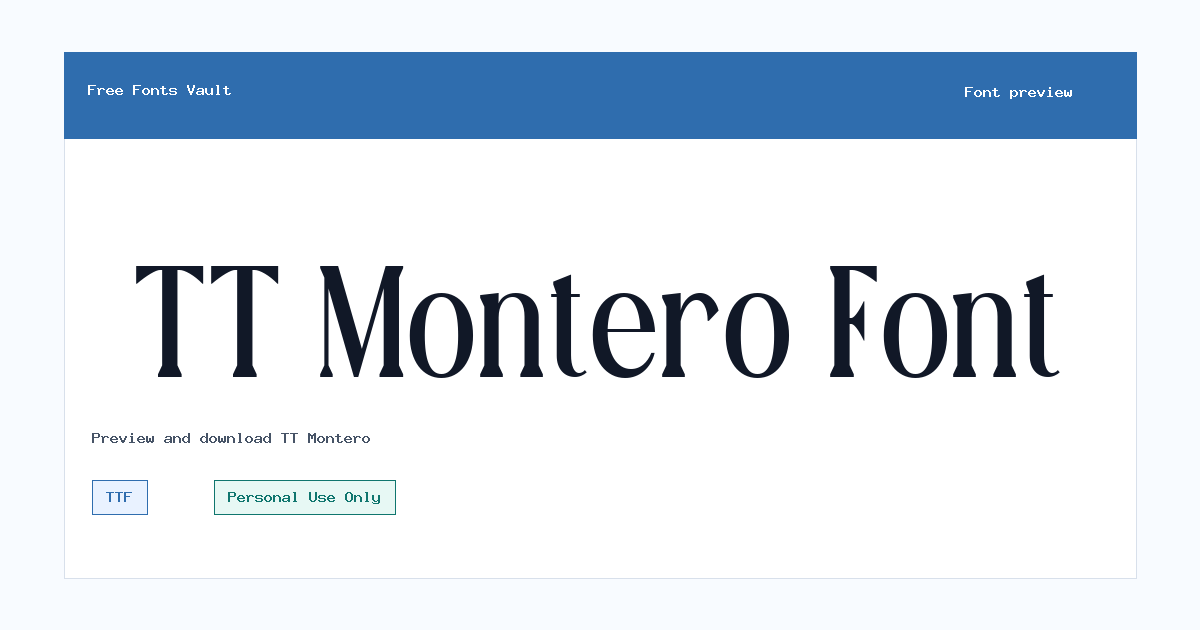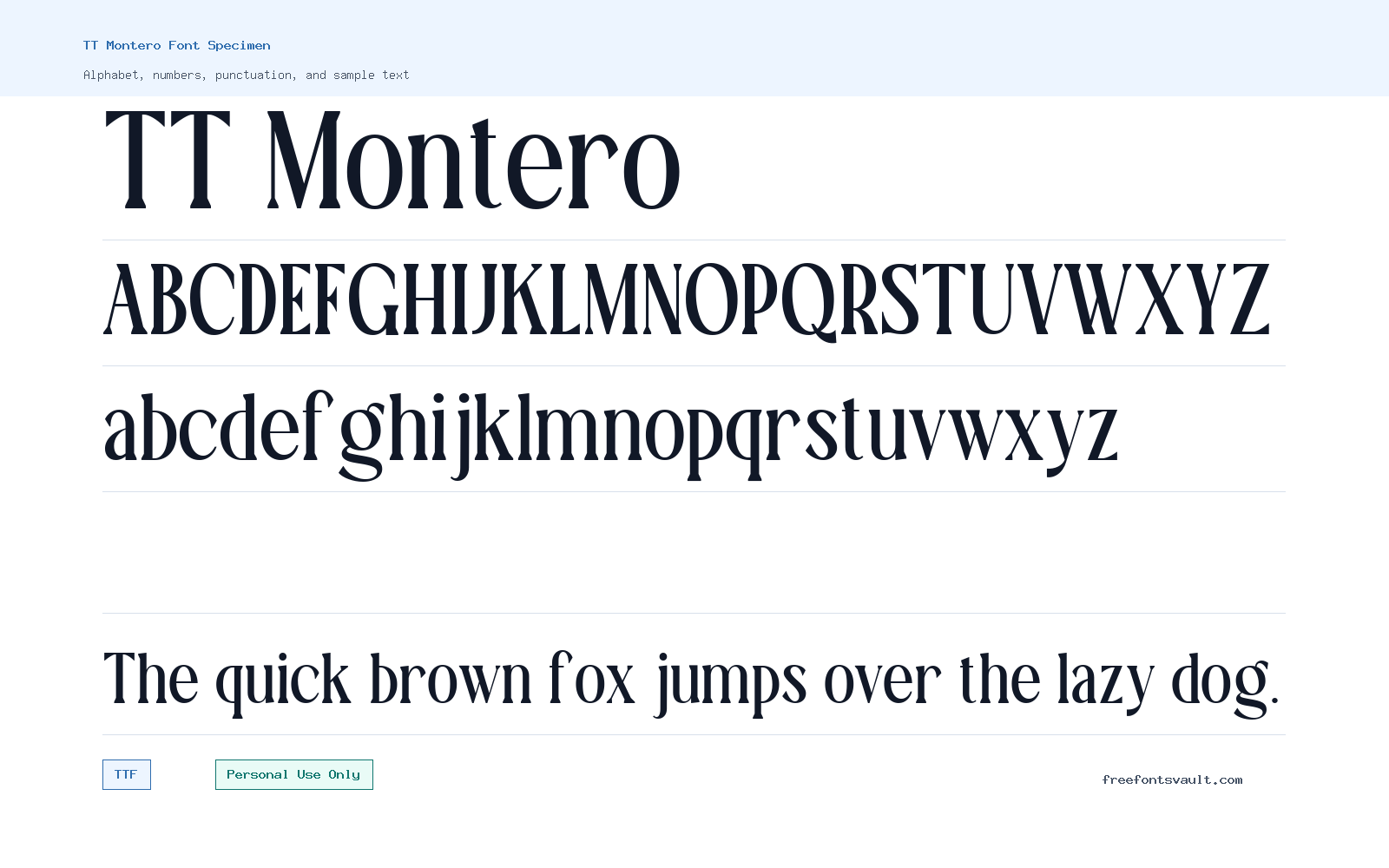
TT Montero
TT Montero font.
TT Montero is a serif font family with demo TTF files for personal-use projects. It is useful when you want a refined headline style with several weight options to test before choosing a final look.
About TT Montero
TT Montero gives you a serif look that works best when the letterforms have room to breathe. The included demo files cover a range from Thin and ExtraLight through Regular, Medium, SemiBold, and Bold, so you can compare a delicate editorial feel against a stronger display setting. Because the files are in TTF format, they are easy to install and preview in most desktop design apps.
Use the preview box to test the words you actually plan to set, especially if your text includes numbers, punctuation, or mixed uppercase and lowercase. Lighter weights can look elegant in large sizes, but they may lose clarity in small captions or low-resolution images. The heavier weights are better for short headings, title cards, quote graphics, packaging mockups, and social posts. For longer reading text, test line spacing carefully and pair it with a quiet sans serif or a simple text serif so the page does not feel too busy.
When comparing the weights, preview the same phrase in each style instead of judging them from different words. That makes it easier to see which weight fits the final size, contrast, and tone of the design.
- Serif styling suited to short display text, headings, and preview-based design testing
- Editorial-style titles, poster headings, quote graphics, and social media artwork
- Brand mockups, invitation drafts, packaging concepts, and other personal-use design previews
Which TT Montero weight should I use?
Use Thin or ExtraLight for large decorative titles, Regular or Medium for balanced headings, and SemiBold or Bold when you need more impact.